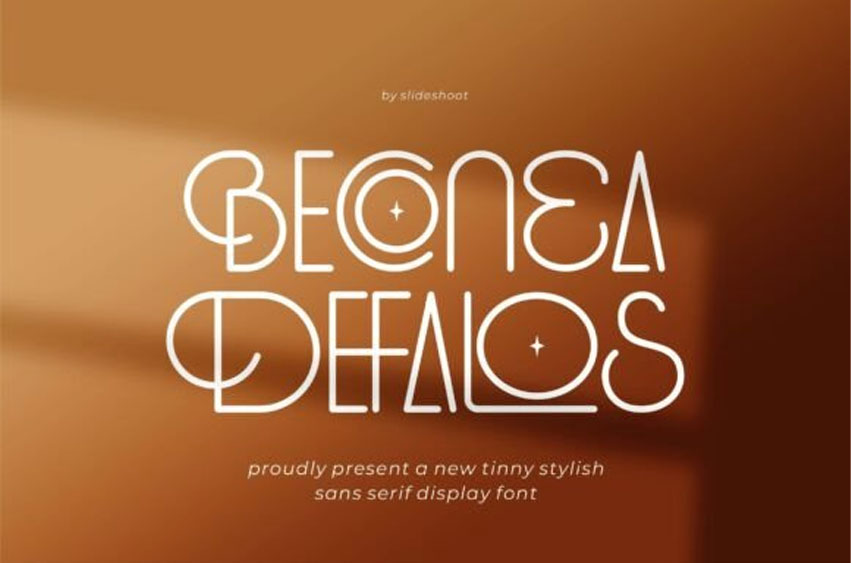
Beconea Defalos Font
Beconea Defalos Font is a modern and classy font for all branding and logo designs. This modern and classy serif font has a beautiful character.
This font is suitable for invitation card designs, cool logos, movie titles, movie names, business cards, book titles, brand names, and various other designs.